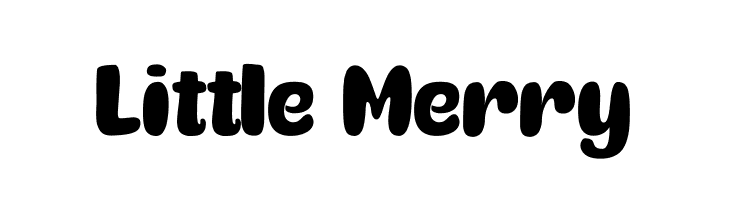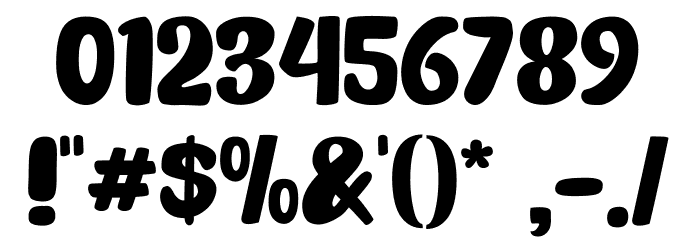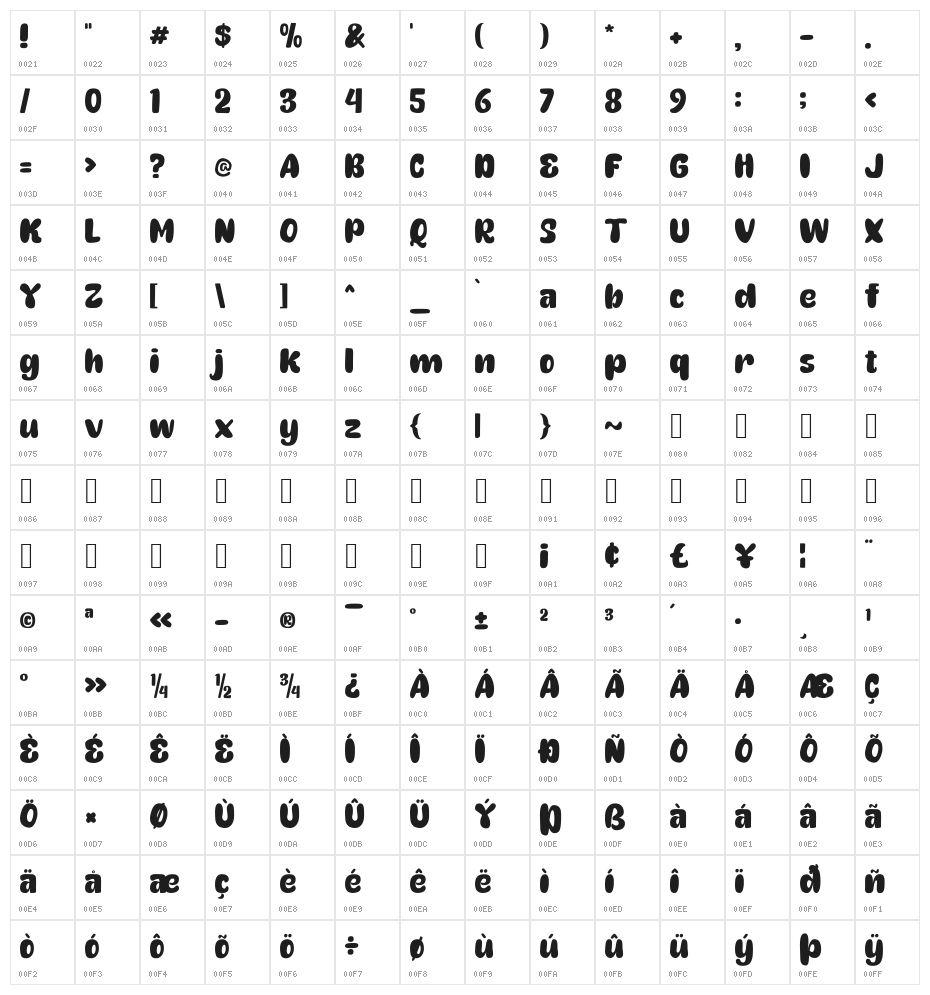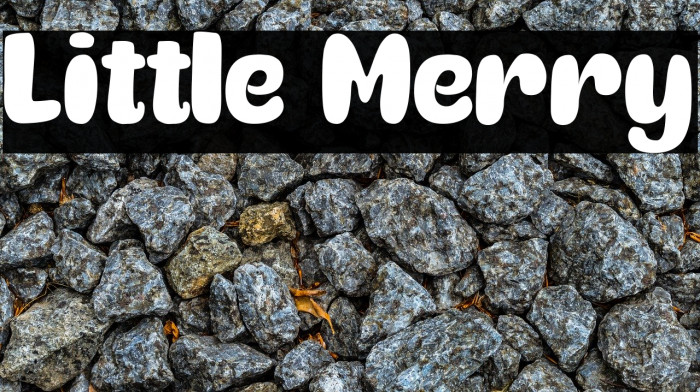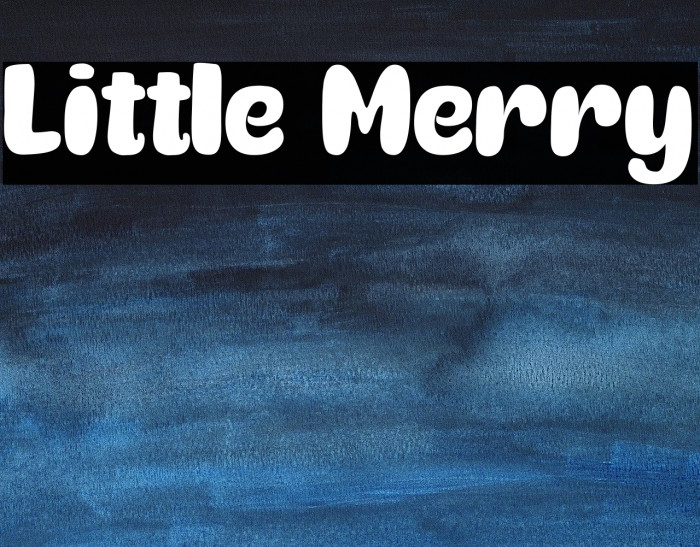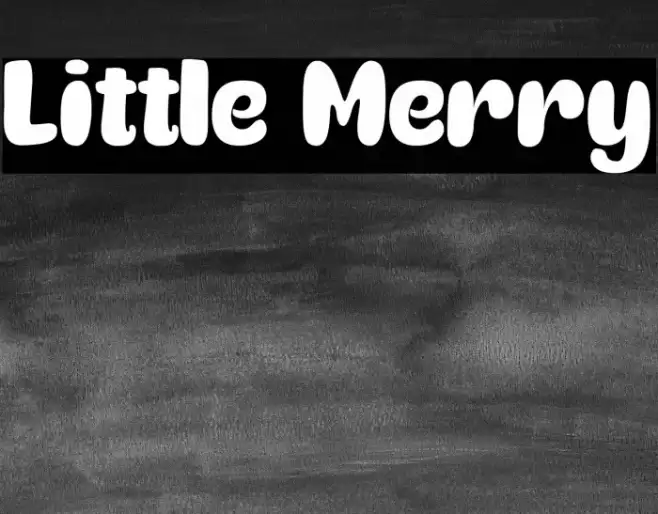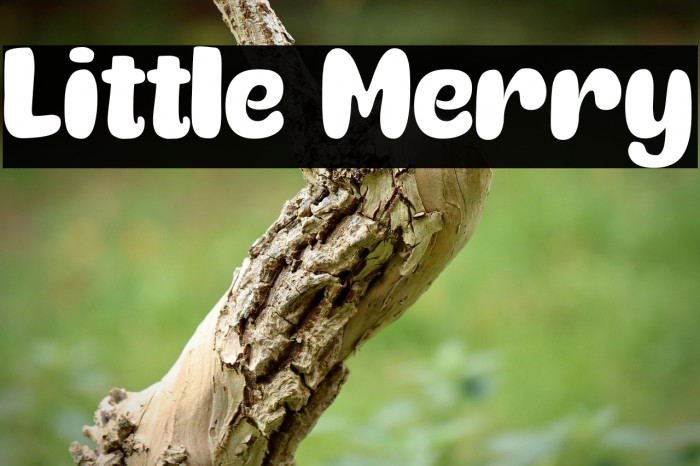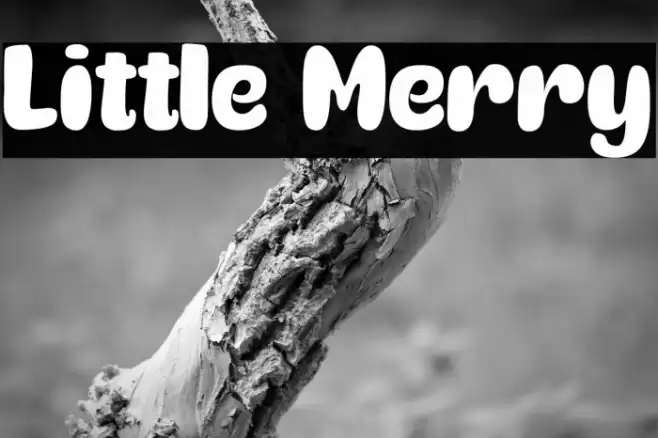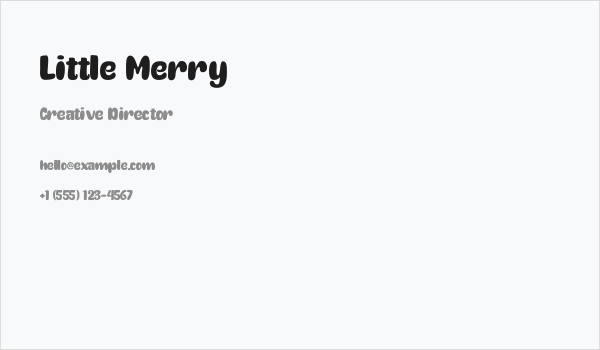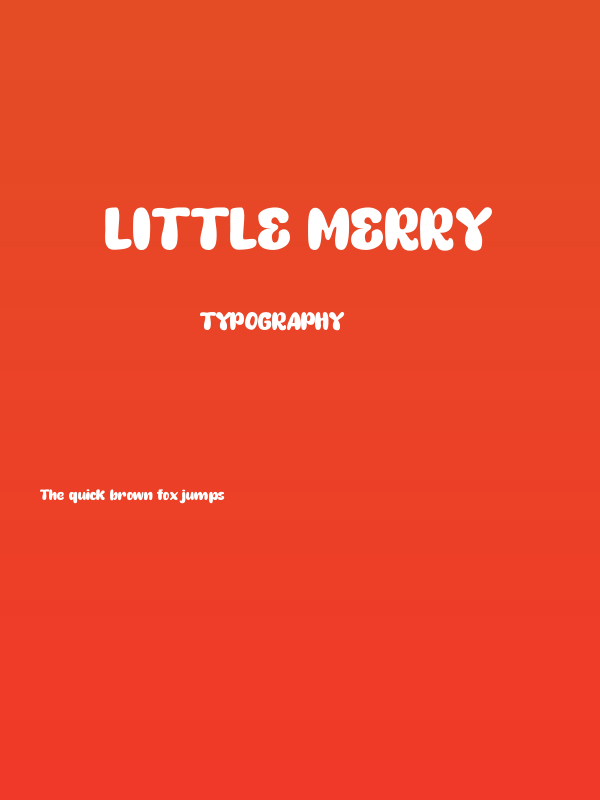
Little Merry Font
Little Merry Description
This playful and bold font features rounded, bubbly characters that convey a sense of fun and whimsy. The letters are thick and have a consistent stroke width, creating a uniform appearance. The font's design is reminiscent of playful, childlike handwriting, making it ideal for projects that require a friendly and approachable aesthetic. The characters are well-spaced, ensuring readability while maintaining a cohesive look. The numbers and special characters follow the same style, adding to the font's versatility. Its unique style makes it suitable for creative and informal applications.
| Proposed Projects | Perfect for children's books, party invitations, playful branding, and creative posters. |